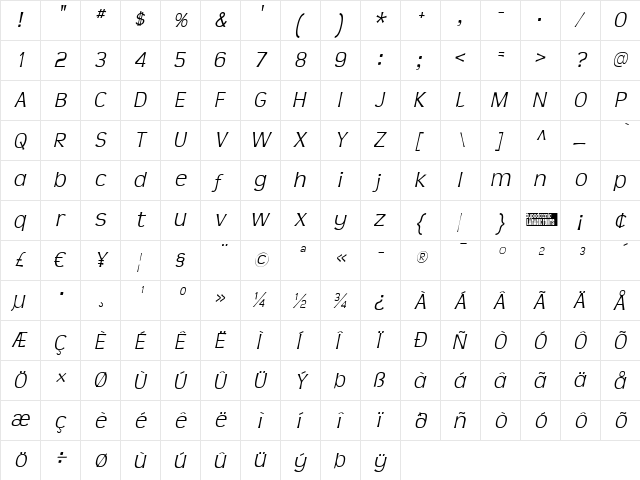
Teen Light Italic
| Foundry | Martin Archer / Ray Larabie |
| Designer | Ray Larabie & Martin Archer |
Design Context for Teen Light Typeface
Teen Light is a composed and adaptable typeface that performs quietly and consistently across a wide range of design contexts. The dynamic lean of this cut emphasises speed and emphasis in any layout. The delicate stroke weight brings airiness and refinement to layouts.
Pro Tip: Use Teen Light for emphasis, pull quotes, and subheadings where its slanted energy can add rhythm to the layout.